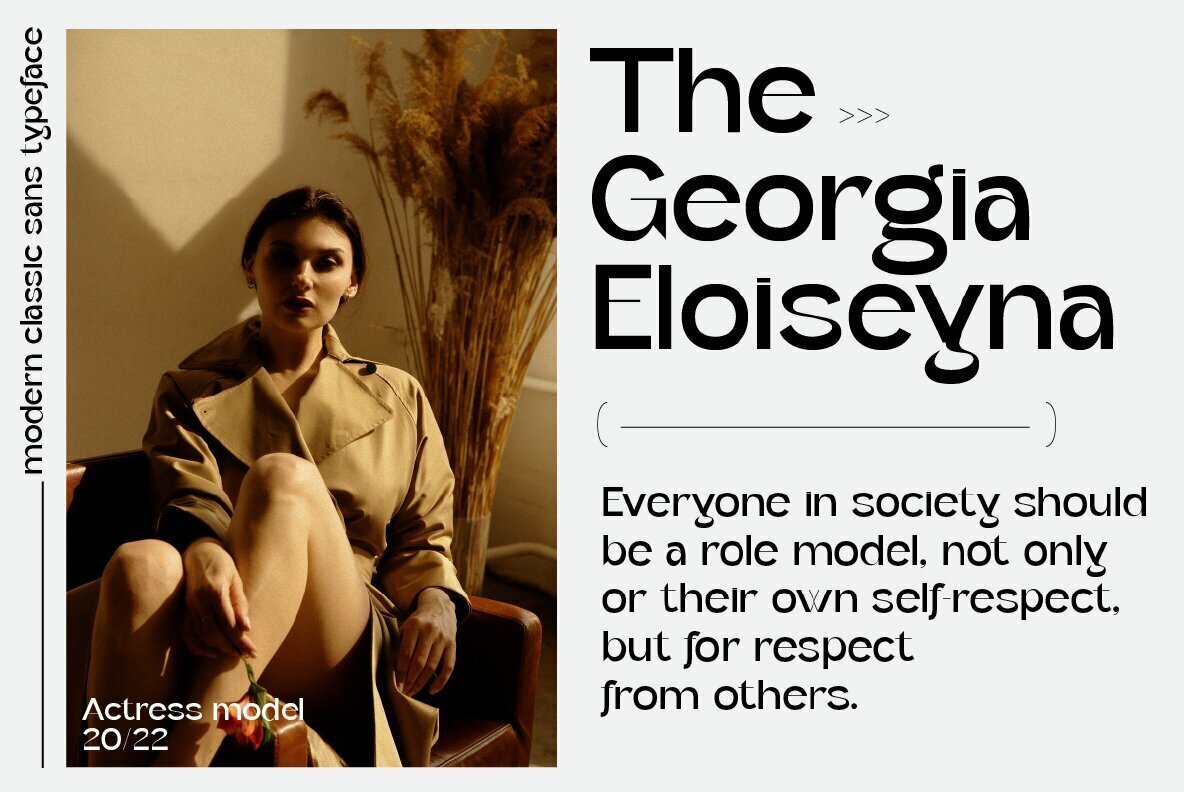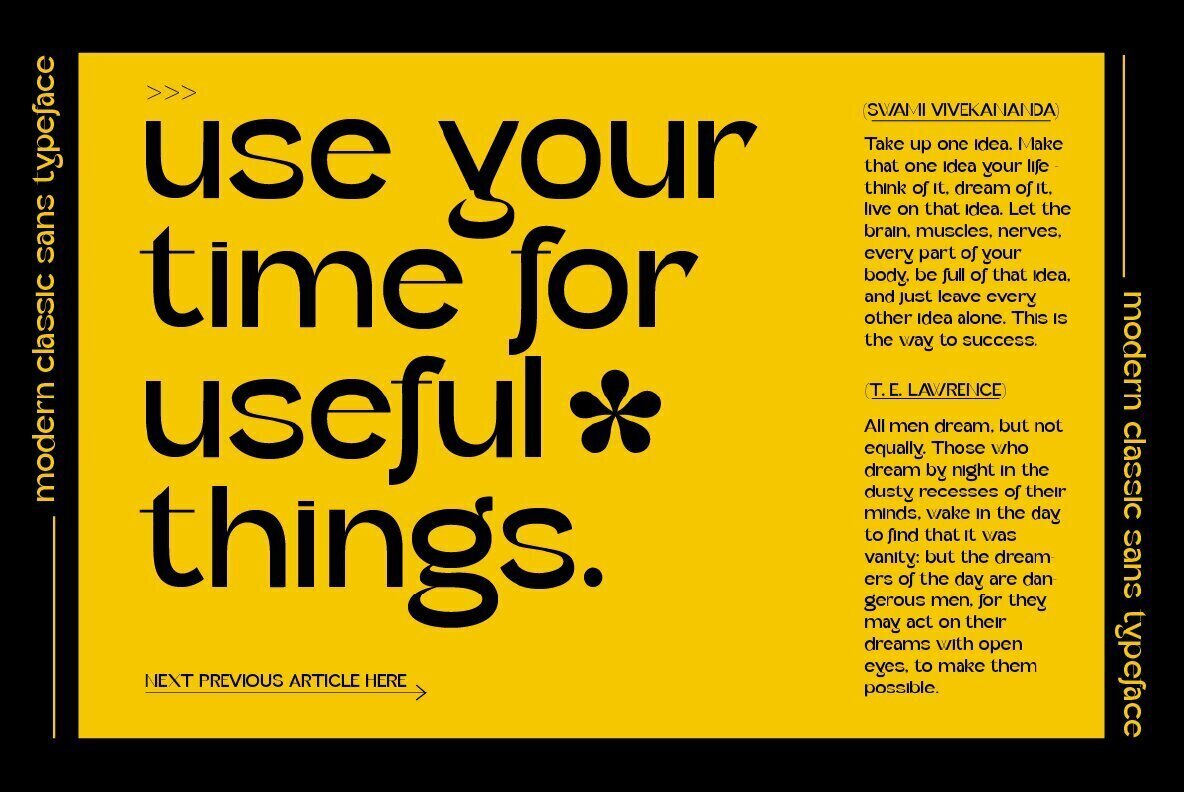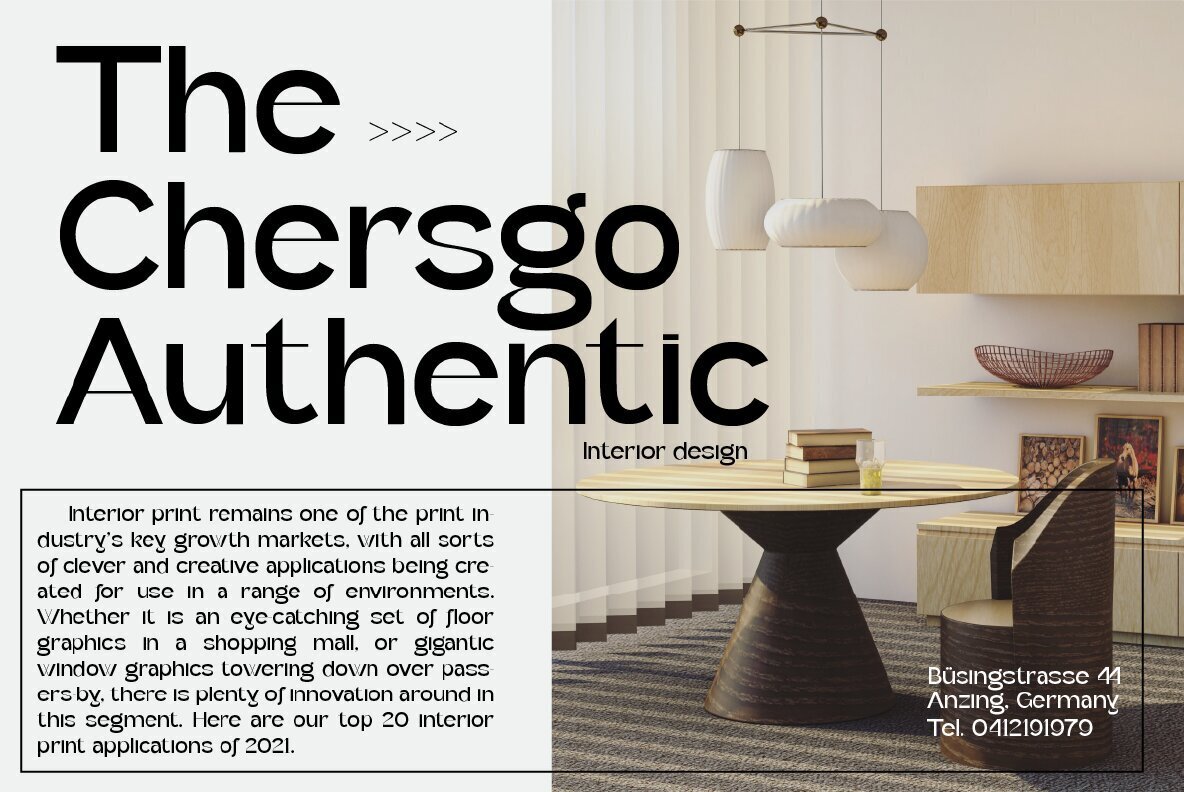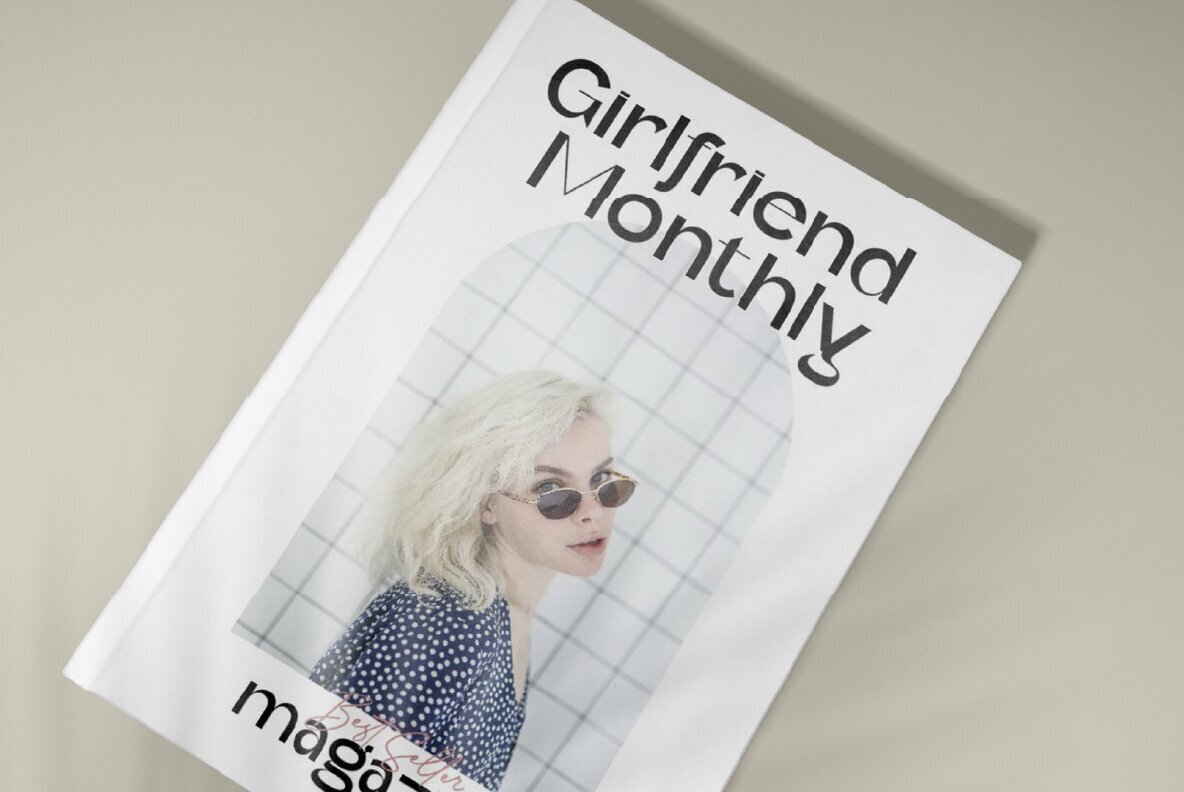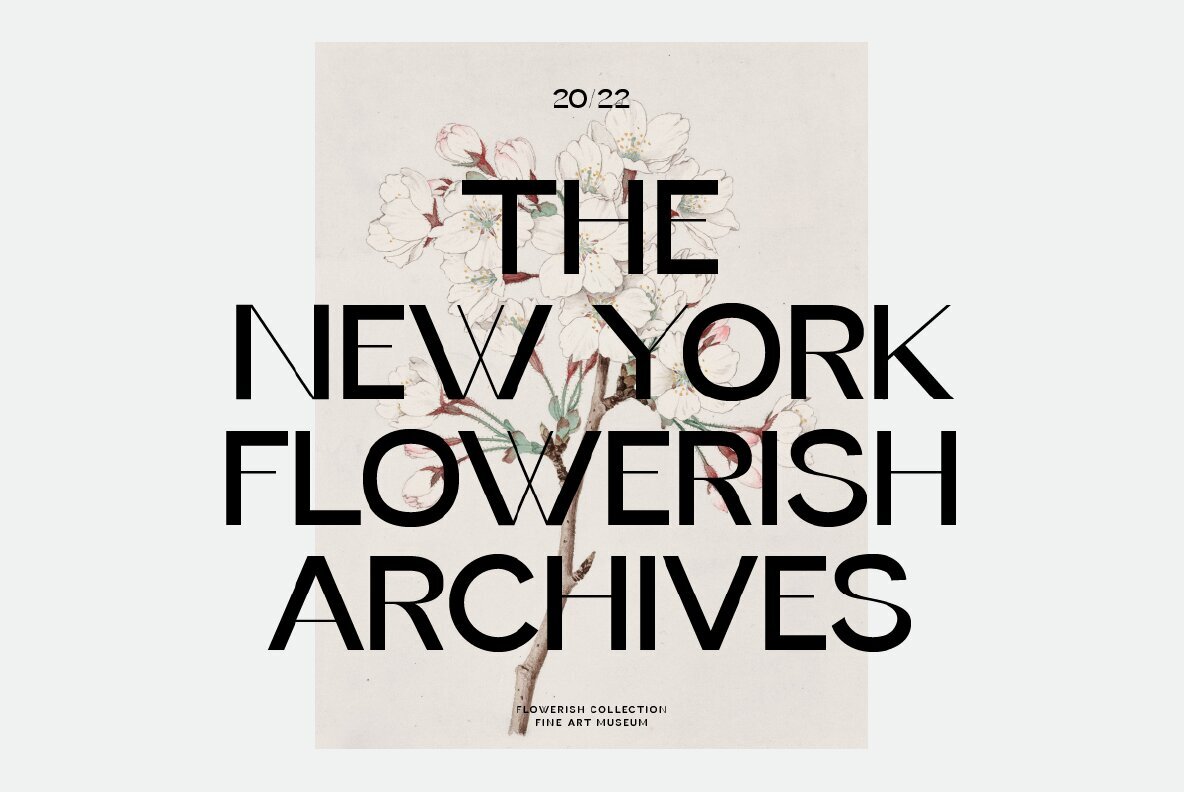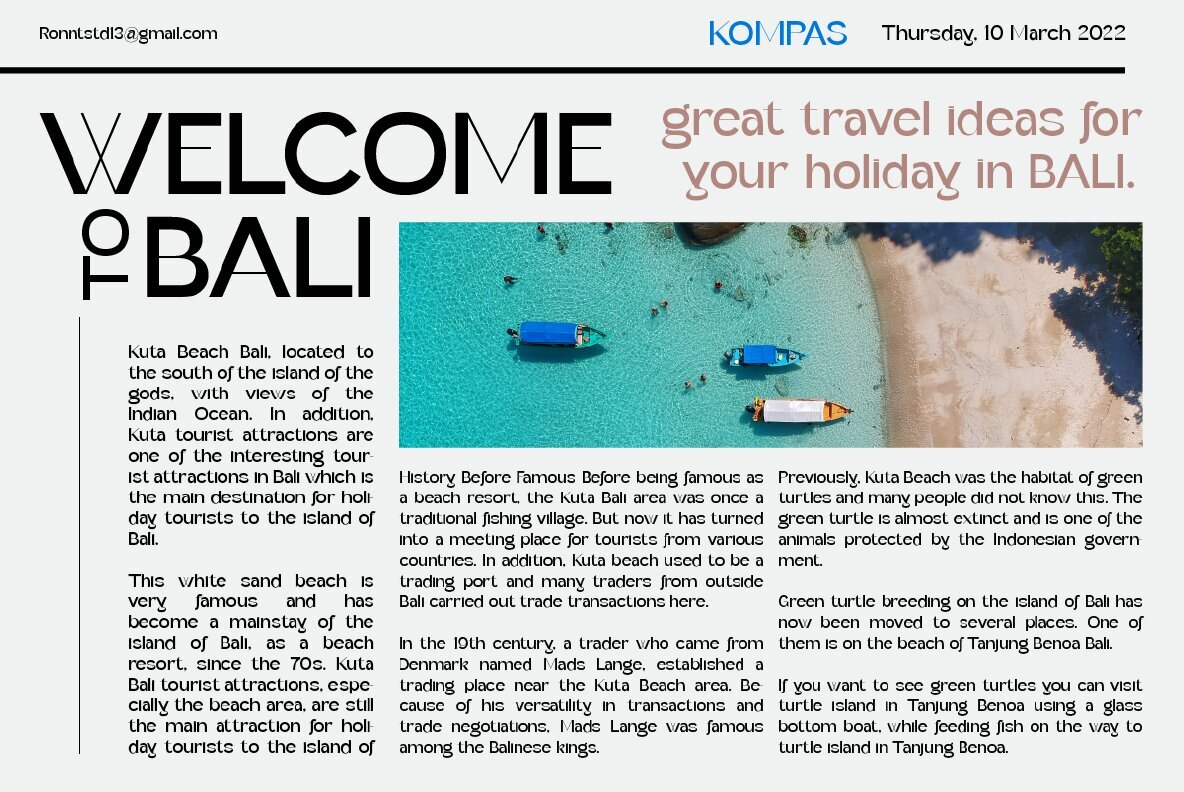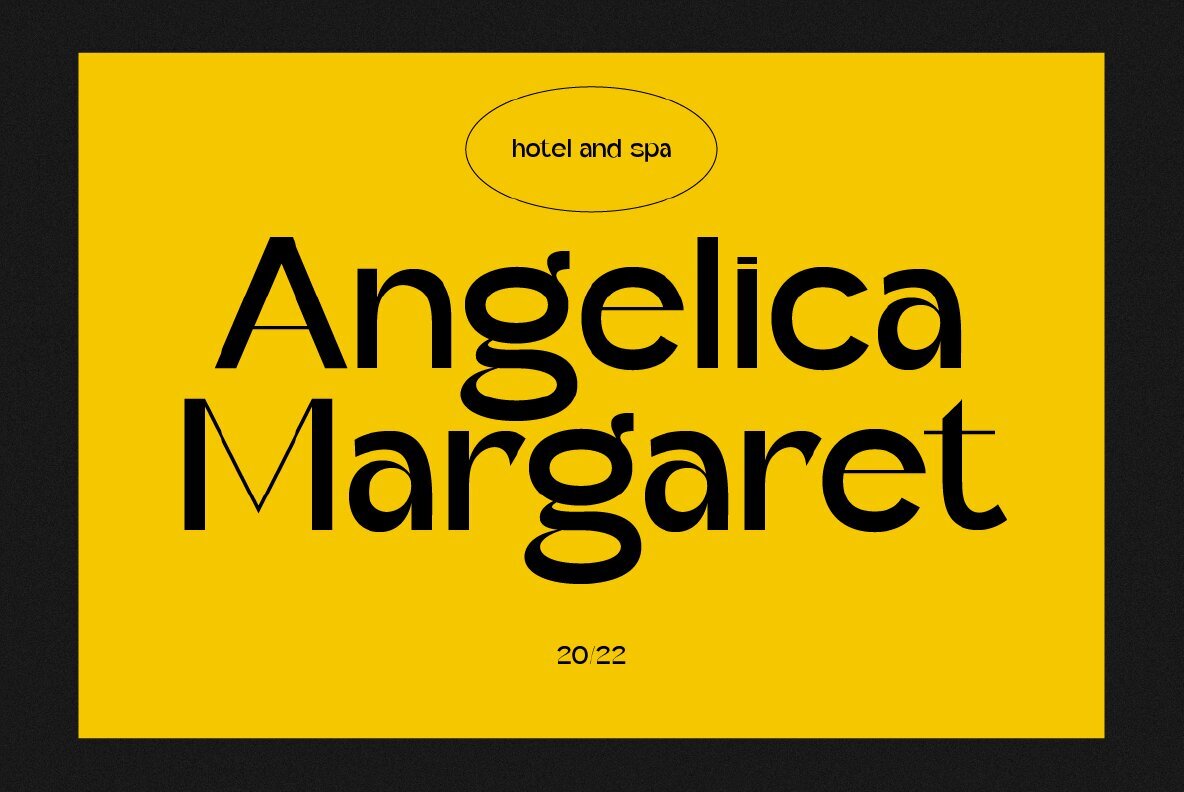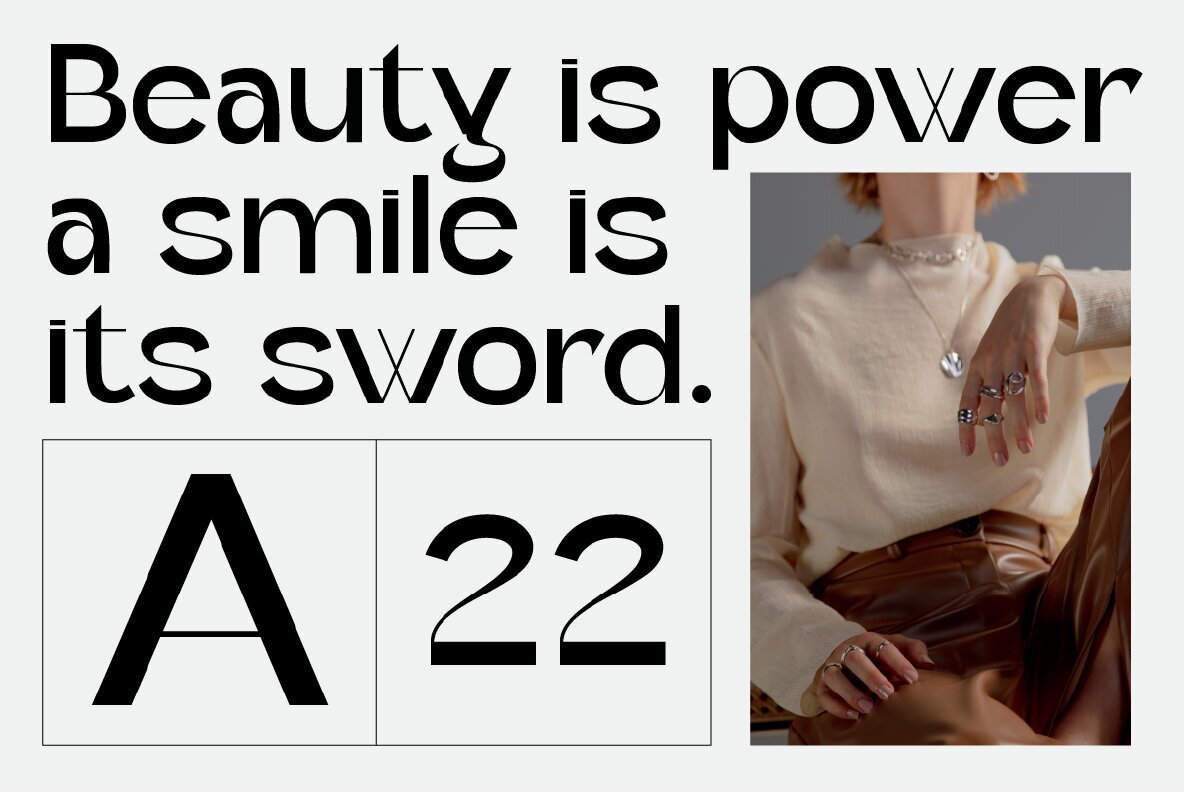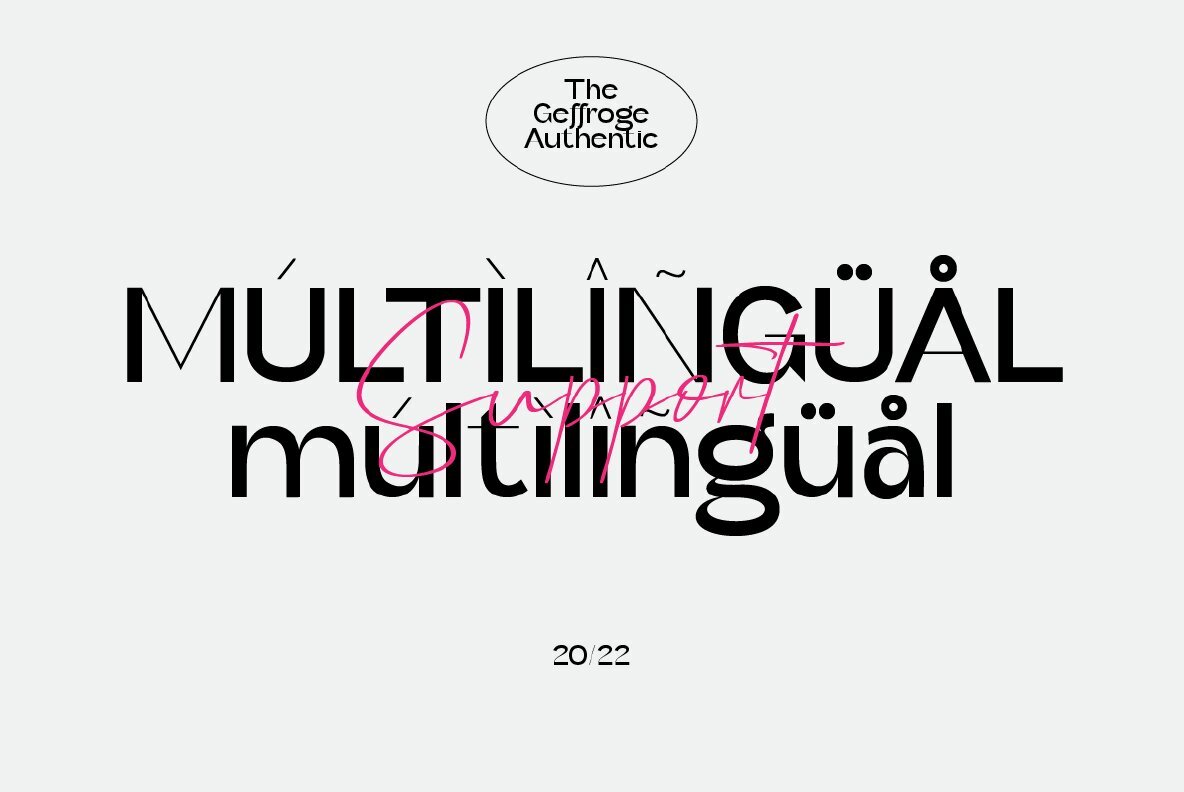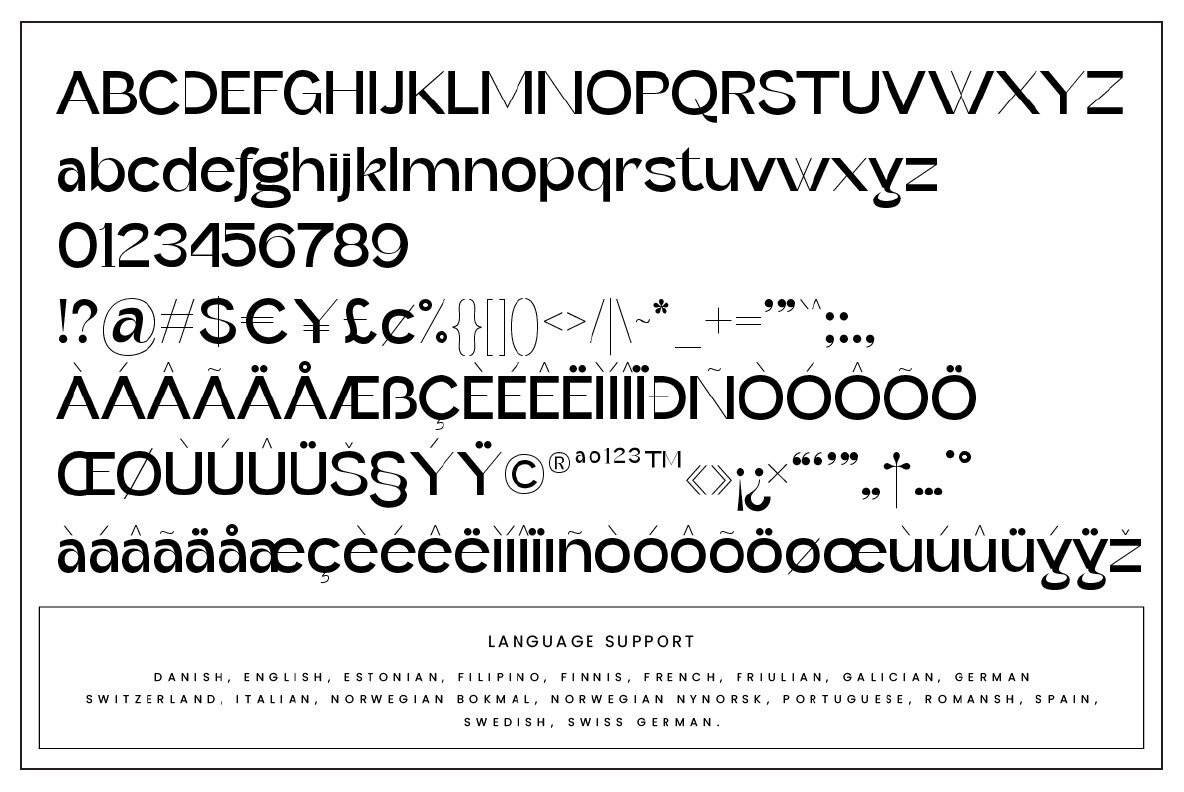
Geffroge Authentic Font
Geffroge Authentic is an elegant modern classic Sans Serif font. This font is impressive and features a clean and elegant font, professionally shaped, and as a result, it will easily match a variety of creations that require a different touch. Add it with confidence to your projects, and you'll love the results. This typeface is perfect for elegant logos, branding, travel promotions, layout magazines, beauty products, product packaging, quotes, or simply as a stylish text overlay onto any background image.